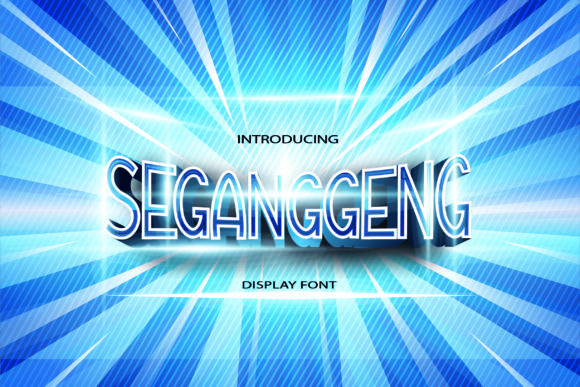
Journey into the realm of visual storytelling with Seganggeng, the font that breathes life into your tales. Crafted with unwavering attention to detail, Seganggeng captivates readers with its heartwarming simplicity and cool, effortless style. Its strokes are like delicate brushstrokes, painting stories with every word.
Step into a world where imagination knows no bounds, where Seganggeng's charming personality dances across the pages of your picture book, weaving magic with every twist and turn. Its natural flow and unique style make it an ideal companion for children's stories, bringing characters to life and capturing the essence of wonder.
With Seganggeng, the boundaries of creativity dissolve, allowing your storytelling prowess to shine. Whether it's a whimsical adventure, a heartwarming tale of friendship, or a journey through a fantastical world, Seganggeng becomes an integral part of your narrative, elevating your words and igniting a sense of wonder in young minds.
Create picture books that resonate with readers, leaving an enduring legacy of cherished memories. Seganggeng's innate charm and captivating presence make it a font of choice for authors and illustrators seeking to create extraordinary works of art.
Embrace Seganggeng, the font that unlocks the boundless potential of your storytelling genius. Immerse yourself in the realm of creativity and craft picture books that touch hearts and captivate imaginations. Let Seganggeng be your muse, your guiding light as you weave enchanting tales that will be treasured for generations to come.